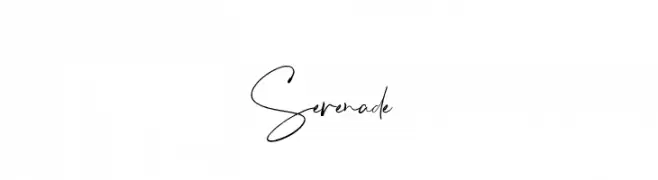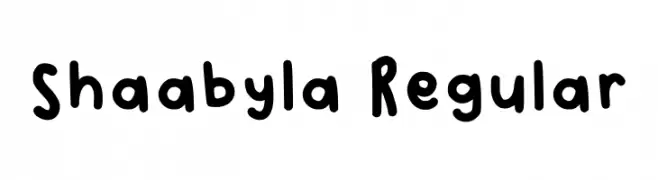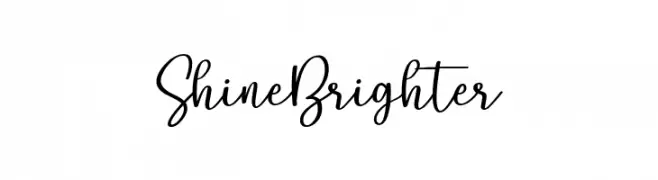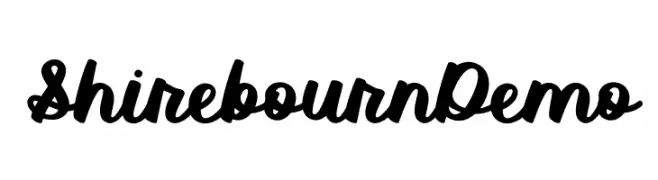
A whimsical, cursive font with flowing, interconnected letters and dynamic stroke variations.
A casual, script-style font with fluid, flowing strokes and a relaxed vibe.
A playful, handwritten font with bold, rounded letterforms.
A playful and elegant script font with flowing, cursive letterforms.
A bold, playful handwritten font with rounded characters.
A lively, expressive handwritten font with fluid strokes and dynamic style.
A playful and elegant handwritten font with fluid, connected letterforms.
A modern, ultra-thin, and elongated font with a minimalist design.
A lively, cursive font with a natural, handwritten feel and elegant loops.
A bold, flowing script font with a playful yet elegant style.